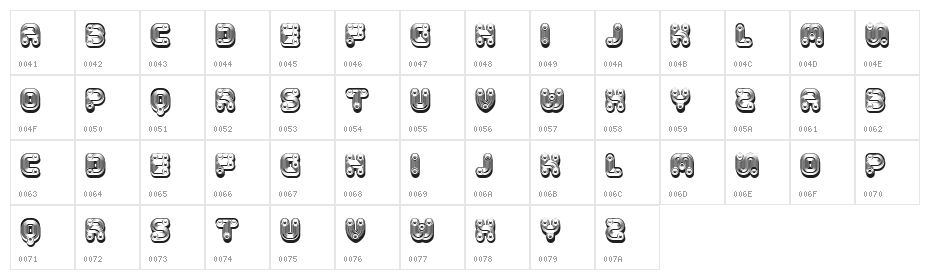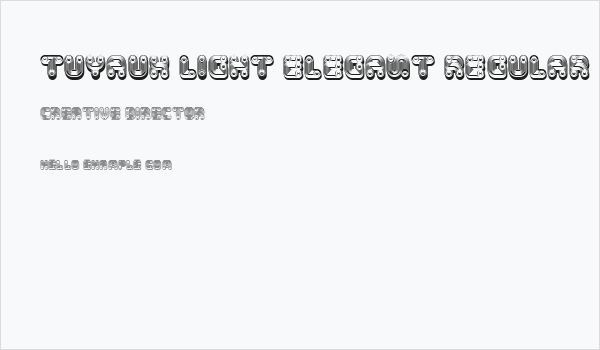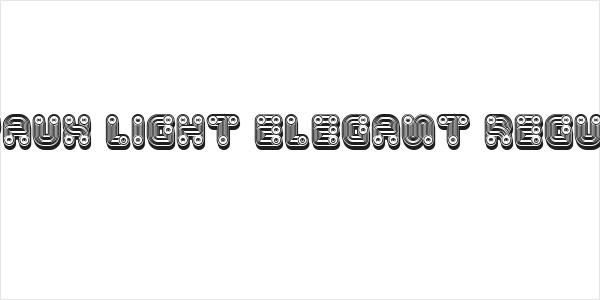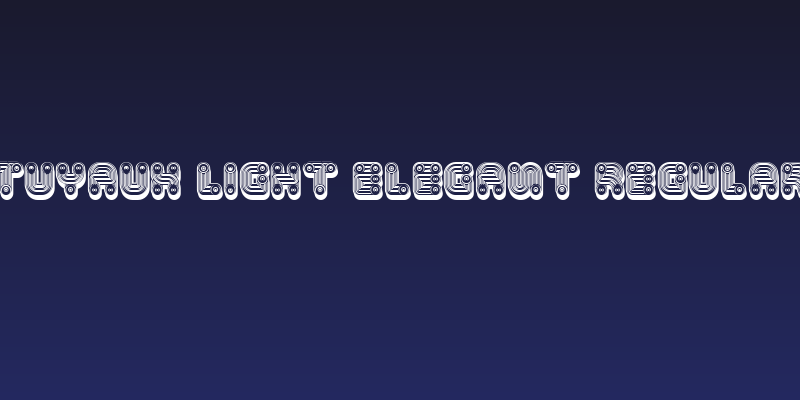
Tuyaux Light Elegant Regular Font
Tuyaux Light Elegant Regular Description
This font features a highly decorative and intricate design, characterized by multiple concentric lines forming each letter. The style is bold and eye-catching, with a unique geometric pattern that gives it a futuristic and artistic flair. The letters are uppercase, with each character displaying a consistent pattern of layered lines that create a sense of depth and movement. The font's design is symmetrical and balanced, making it suitable for projects that require a strong visual impact. Its complex structure suggests a modern and innovative approach, ideal for creative and experimental uses.
| Proposed Projects | Ideal for posters, album covers, branding, and any project needing a striking visual element. |